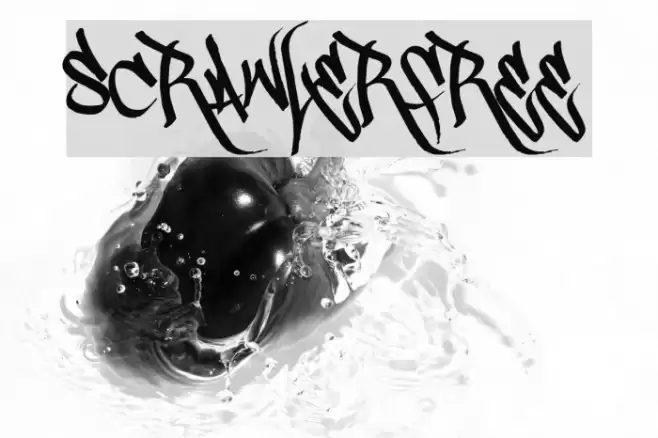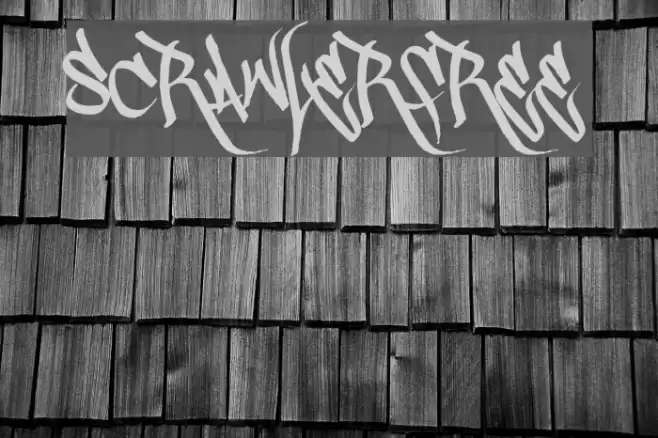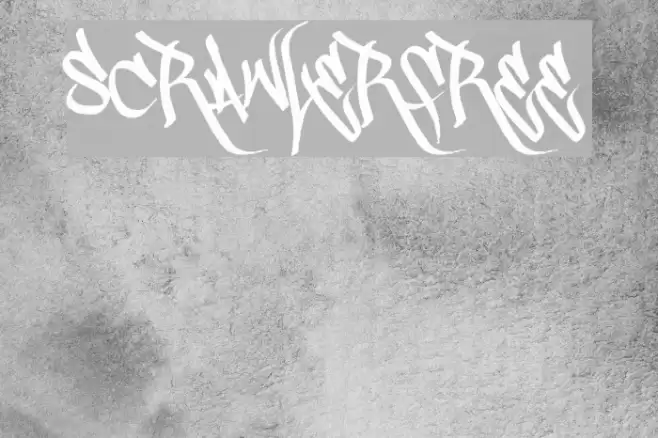
Scrawler3_free Font
Scrawler3_free Description
This font exudes a dynamic and edgy graffiti style, characterized by its bold and expressive strokes. The letters are highly stylized with sharp angles and exaggerated curves, giving it a rebellious and urban feel. Each character seems to flow into the next, creating a sense of movement and energy. The uppercase and lowercase letters maintain a consistent style, while the numbers and special characters integrate seamlessly, enhancing the overall aesthetic. This font is perfect for projects that aim to capture an urban, street art vibe, making it ideal for posters, album covers, and other creative designs.
A bold, graffiti-style font with dynamic and expressive strokes from Uncategorized fonts.
- Proposed Projects: Ideal for street art-inspired designs, album covers, posters, and urban-themed branding.
- Character Spacing: Tight
- Contrast: High
- Overall Style: Urban, Graffiti
- Use Case: Logos, Posters, Creative Displays